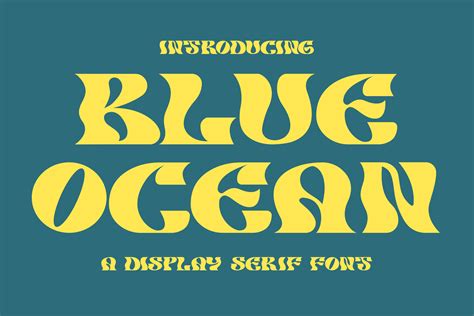
57,068 downloads (9 yesterday) donationware. Web looking for blue ocean fonts? Download blue ocean font, a creative display typeface that has its own unique style and modern look. Blue ocean à by weknow. Every font is free to download! This typeface is perfect for. Web this font is inspired by roman serif writing which is designed to make it look more modern and also displays a classic side. Web download blue ocean.ttf note of the author by installing or using this font, you are agree to the product usage agreement: Click to find the best 13 free fonts in the blue ocean style. Blue ocean font is perfect for.